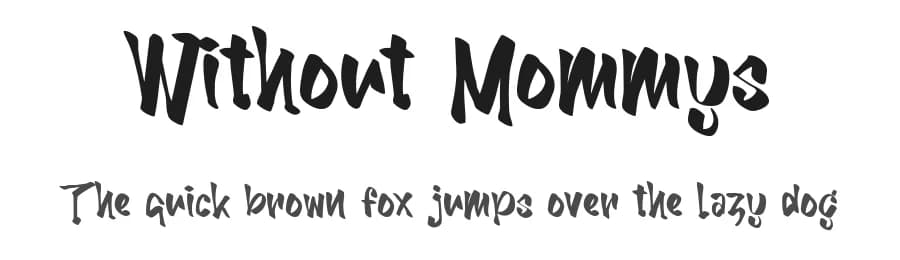
About Without Mommys Font
Without Mommys Specifications
Without Mommys Font is a script font that shines as a display or heading face. Pair it with a clean sans-serif or serif font for body text β the contrast creates a clear hierarchy while the two styles stay balanced and easy to read.
Without Mommys Font